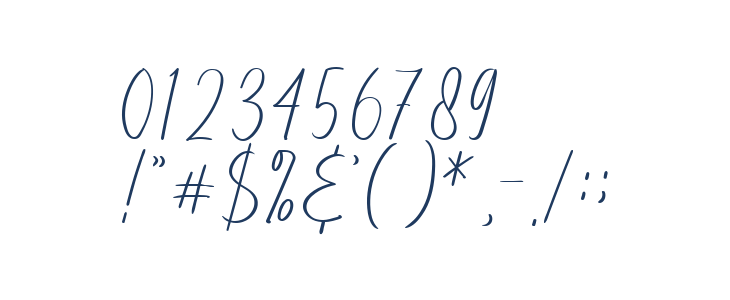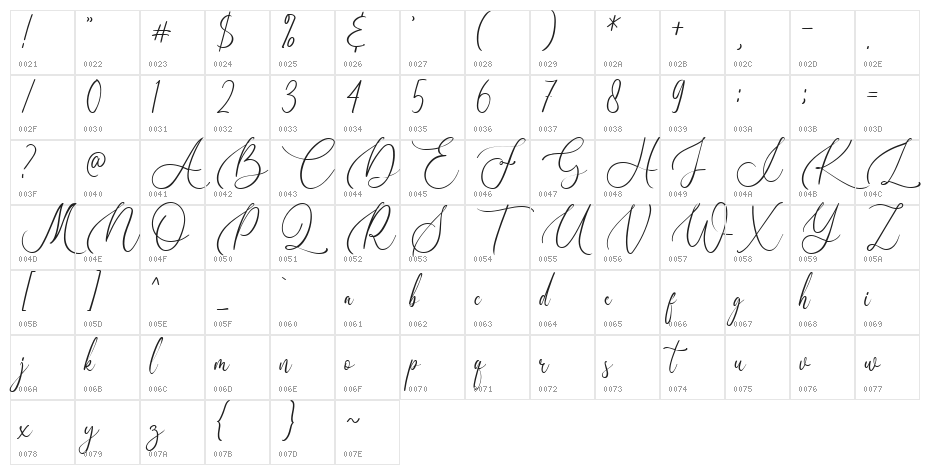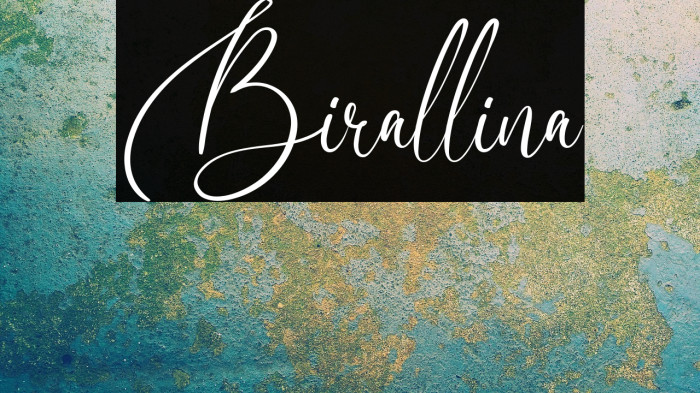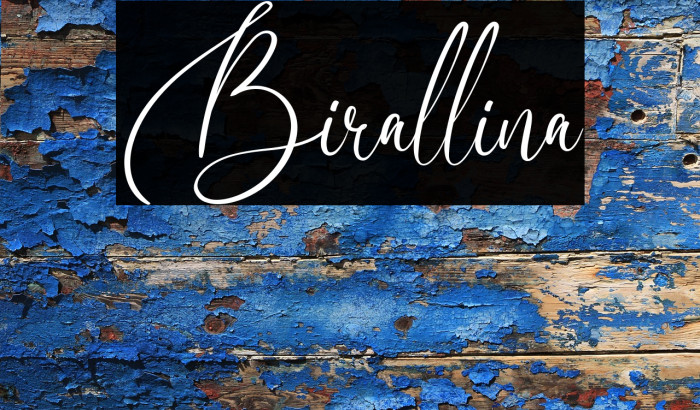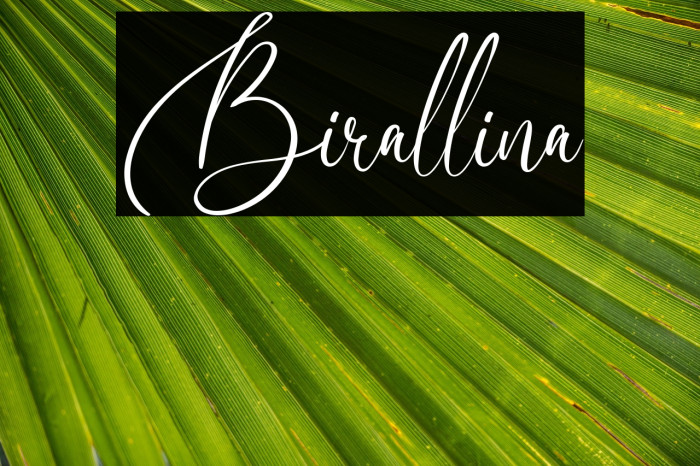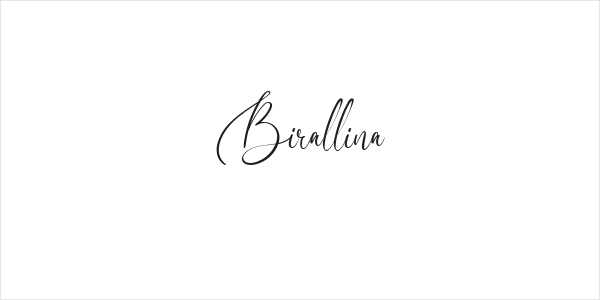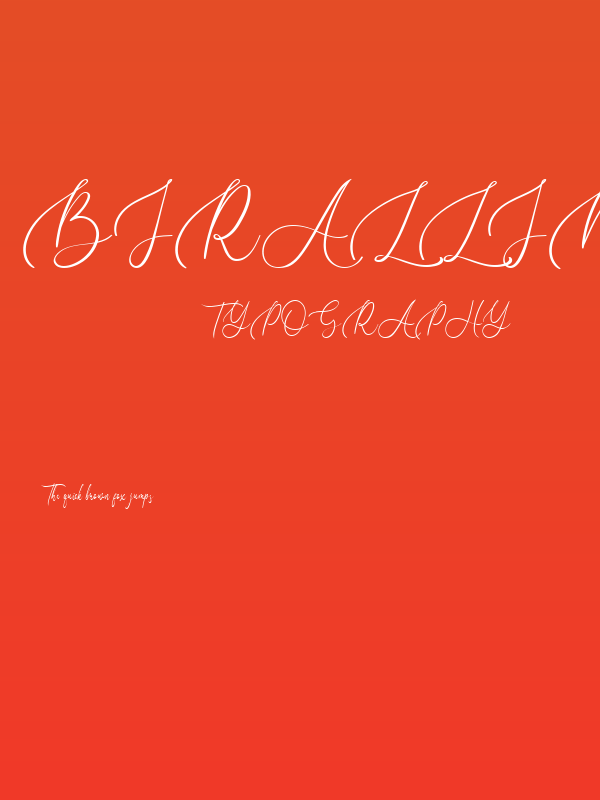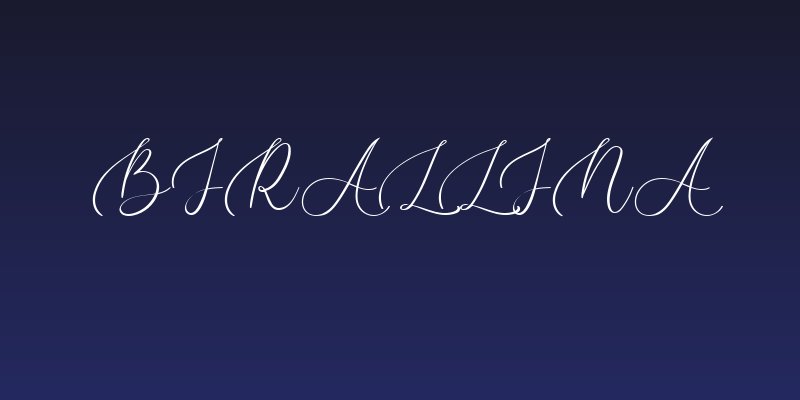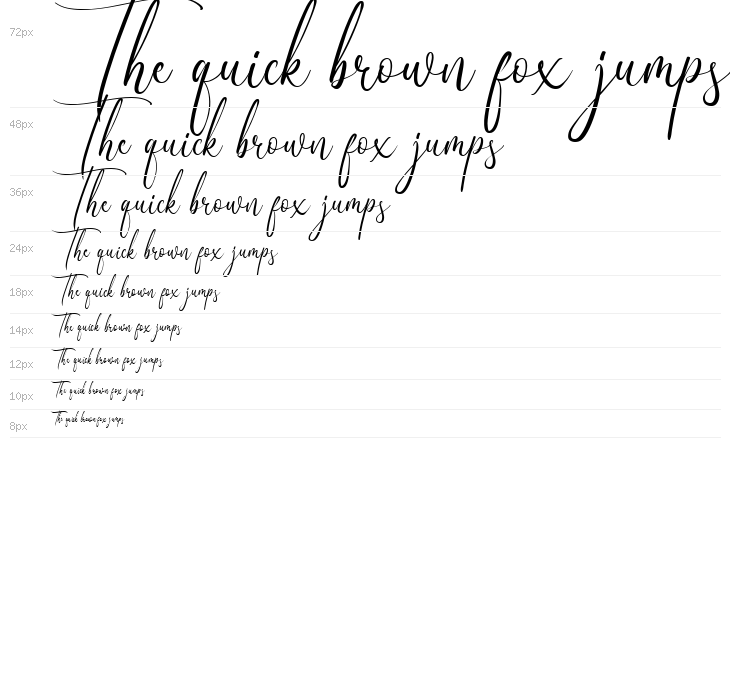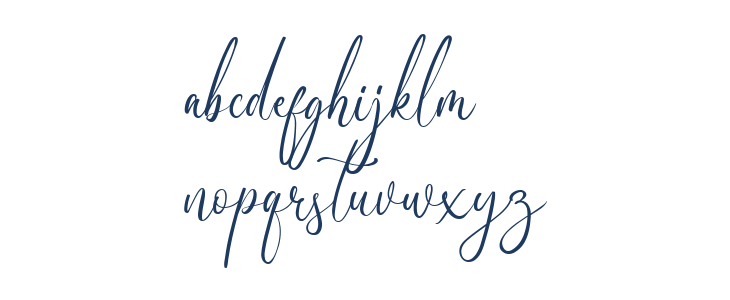
Birallina Font
Birallina Description
This elegant script font features a flowing, cursive style with intricate loops and swashes, giving it a sophisticated and artistic appearance. The uppercase letters are particularly ornate, with each character exhibiting unique flourishes that enhance its decorative appeal. The lowercase letters maintain a more consistent flow, providing a harmonious balance between readability and style. The numerals and special characters are designed to complement the overall aesthetic, ensuring a cohesive look across all text. This font is perfect for projects that require a touch of elegance and creativity.